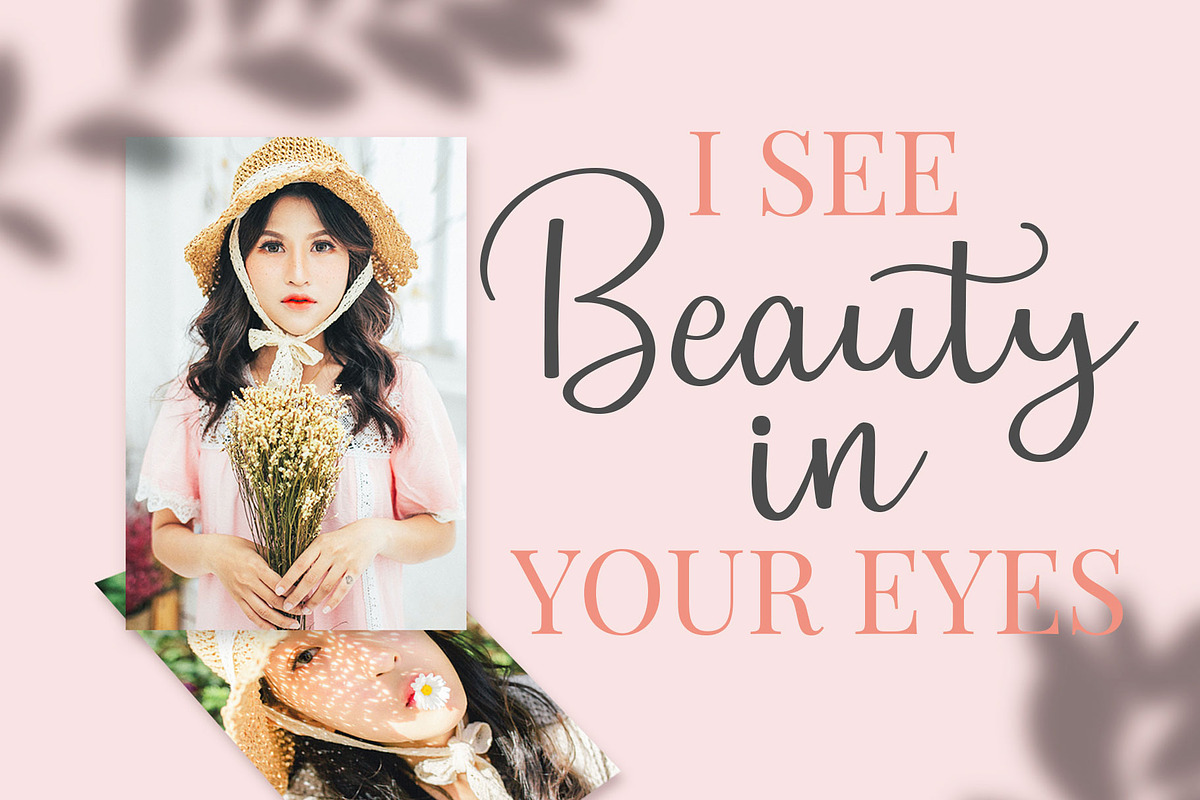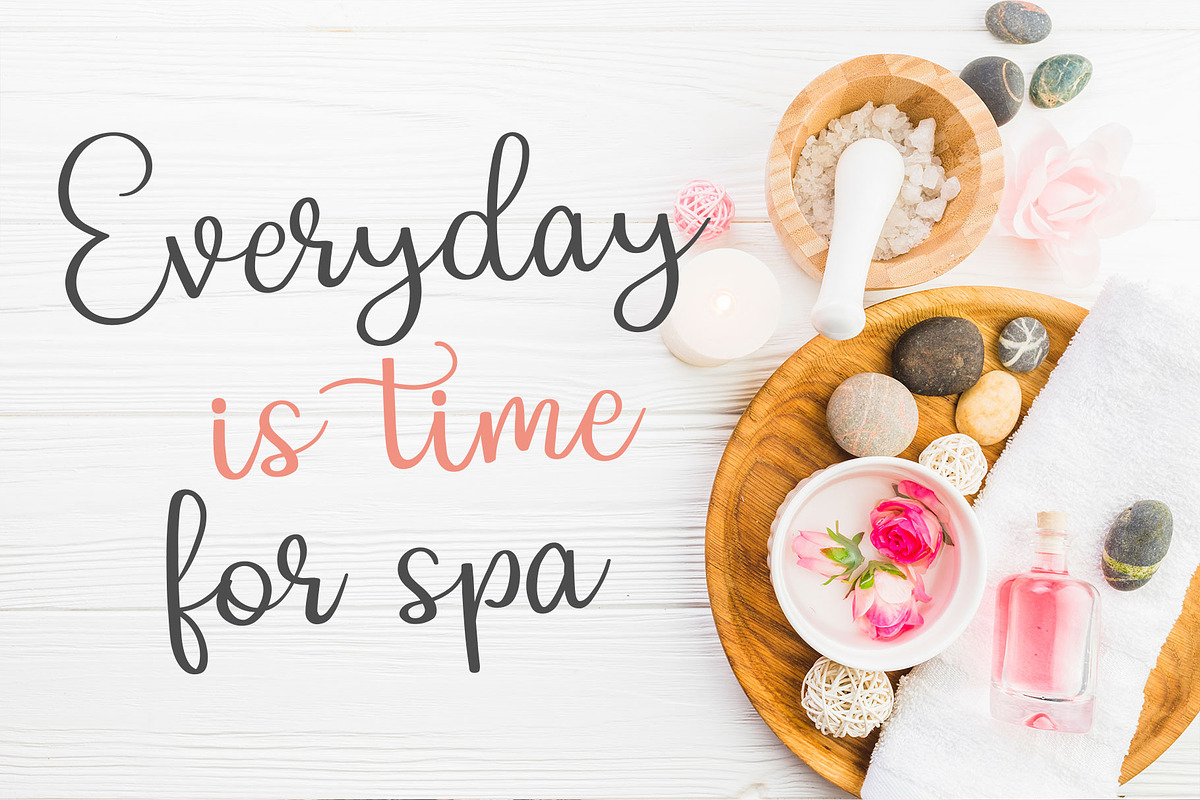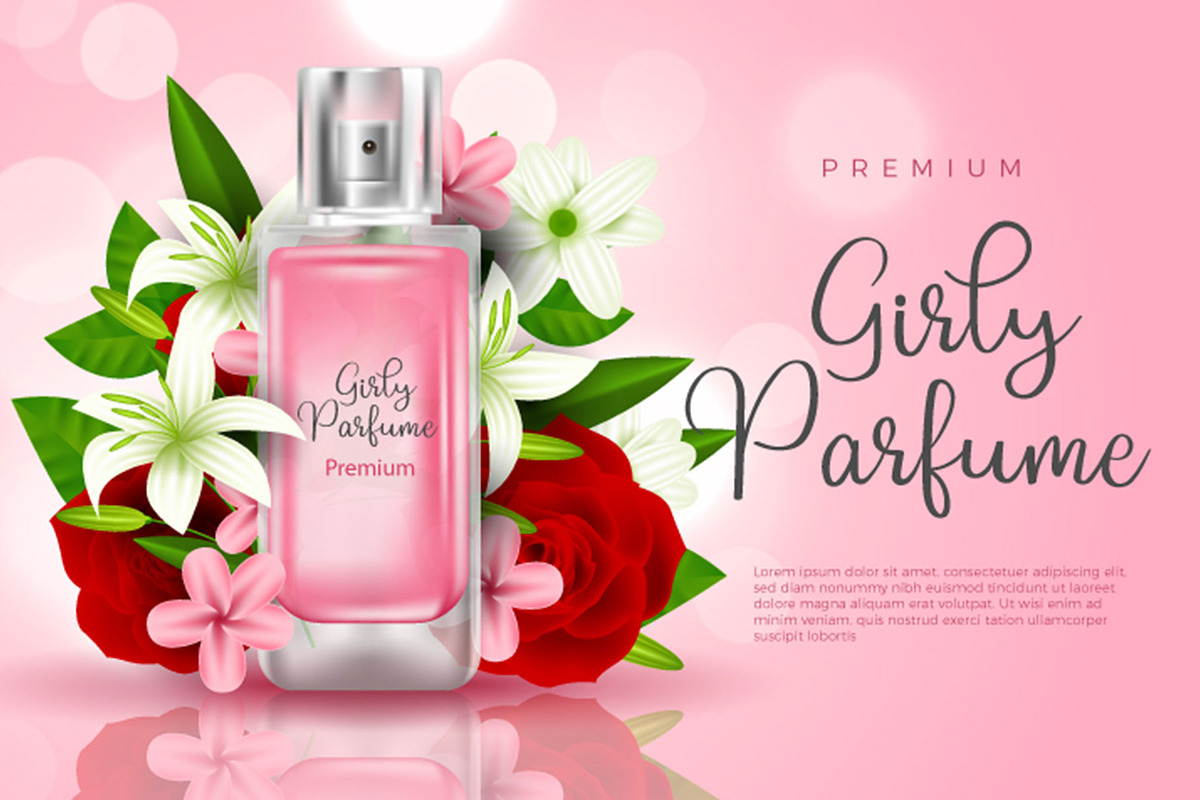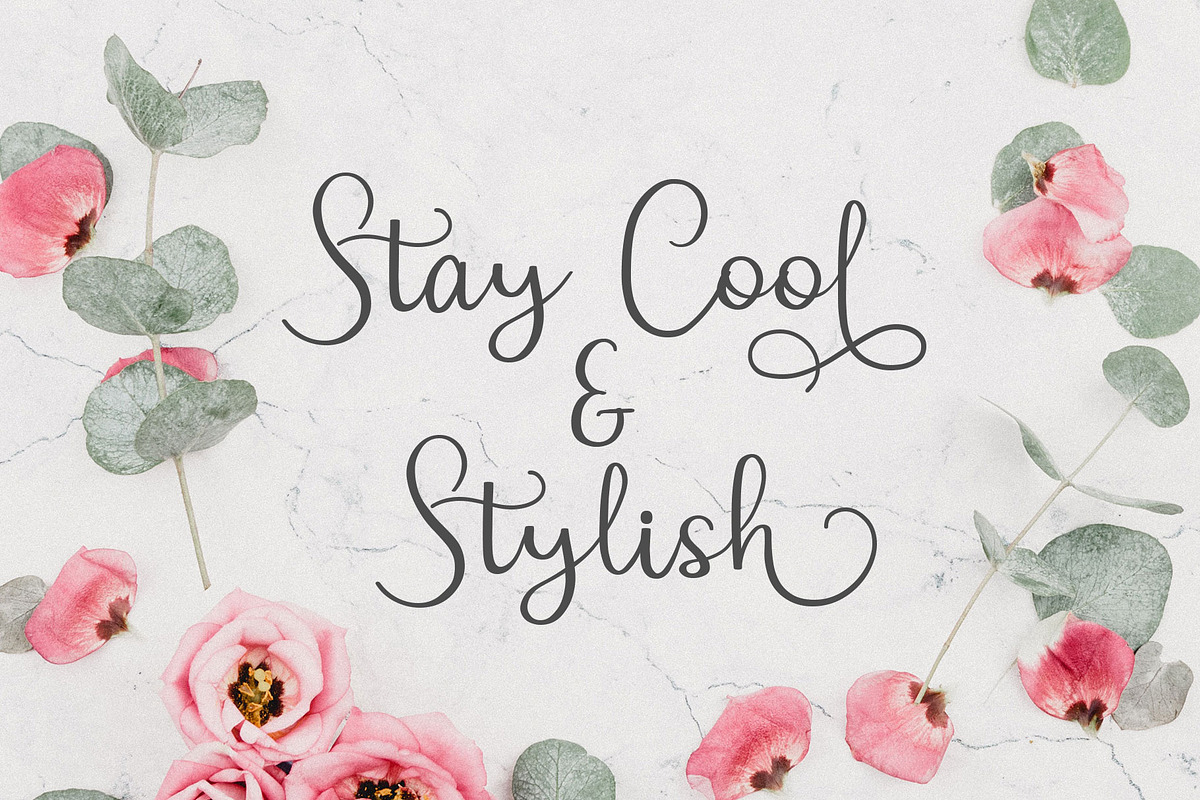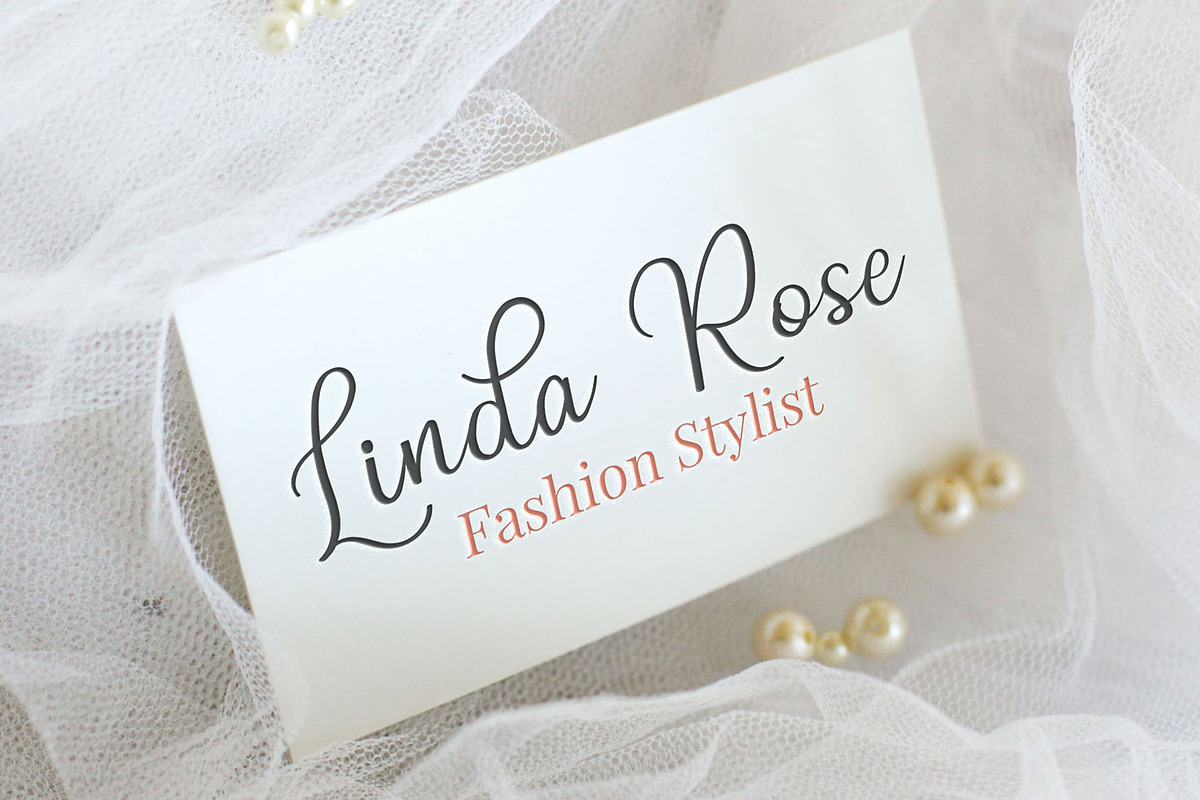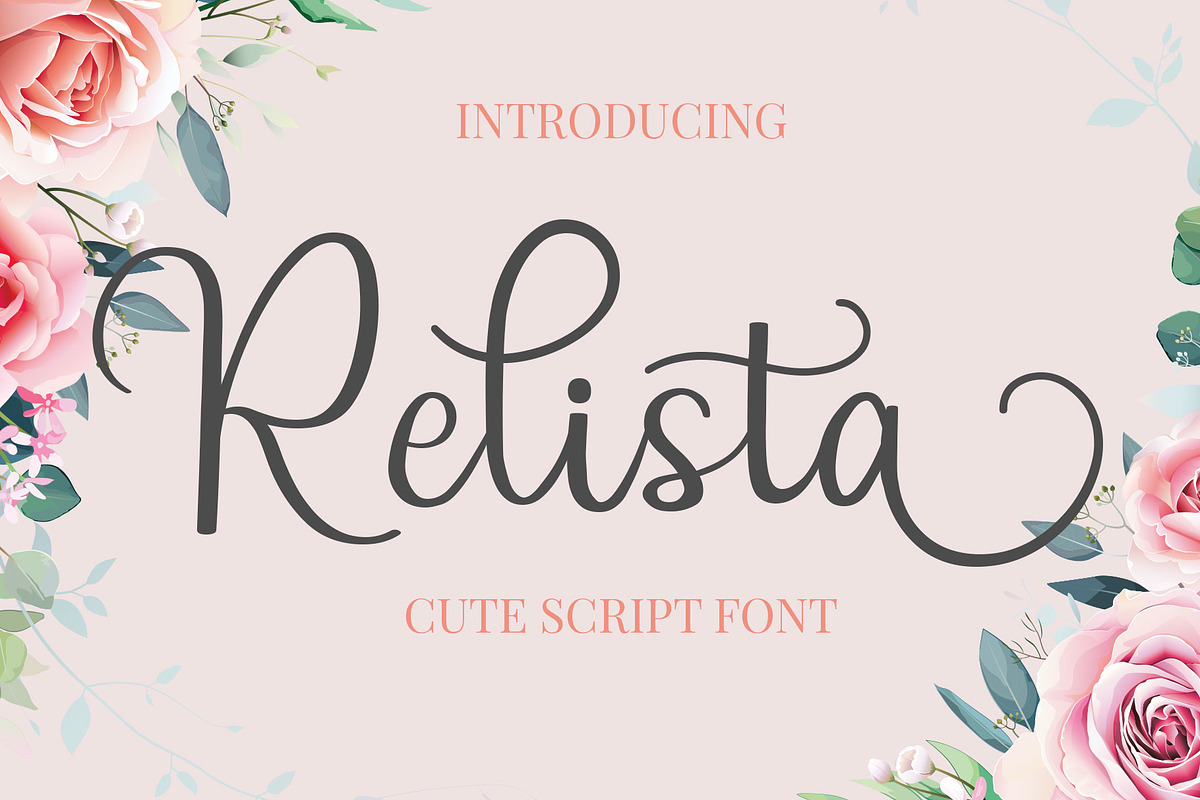
Relista Script Font
Relista Script font - This font is beauty and elegant script style with handwritten style. It will be perfect for any project. Relista font also has some alternate glyph to make your design more stylish and beautiful.
- Relista font also has some alternate glyph to make your design more stylish and beautiful.
Why Relista Script Font is worth a look
Relista Script Font by LetterJos fits naturally into Branding, posters, packaging, typography.